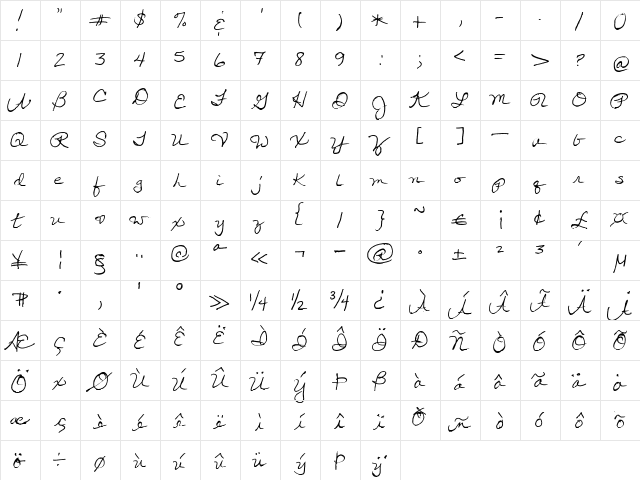
Alice Wachol Regular
Design Context for Alice Wachol Typeface
Alice Wachol is a composed and adaptable typeface that performs quietly and consistently across a wide range of design contexts.